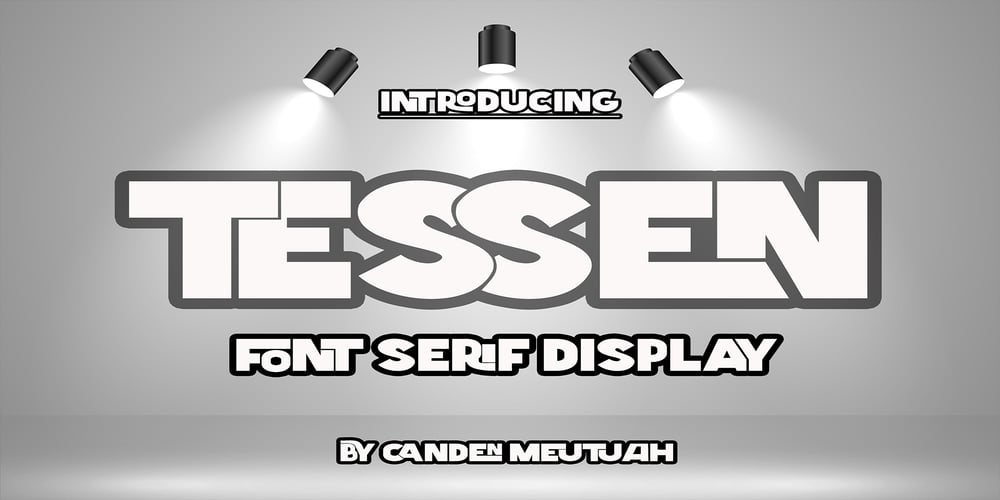
Tessen Font Family was designed by Canden Meutuah and published by Canden Meutuah. Tessen contains 1 styles and family package options. This is a very versatile font that works well in both large and small sizes. This font is perfect for branding projects, logo design, clothing branding, packaging, magazine titles, advertisements, t-shirts, postcards, editorials, magazine headlines, product packaging, and displaying masculine and feminine qualities. equipped with uppercase, lowercase, numbers and full punctuation + Multi-language support